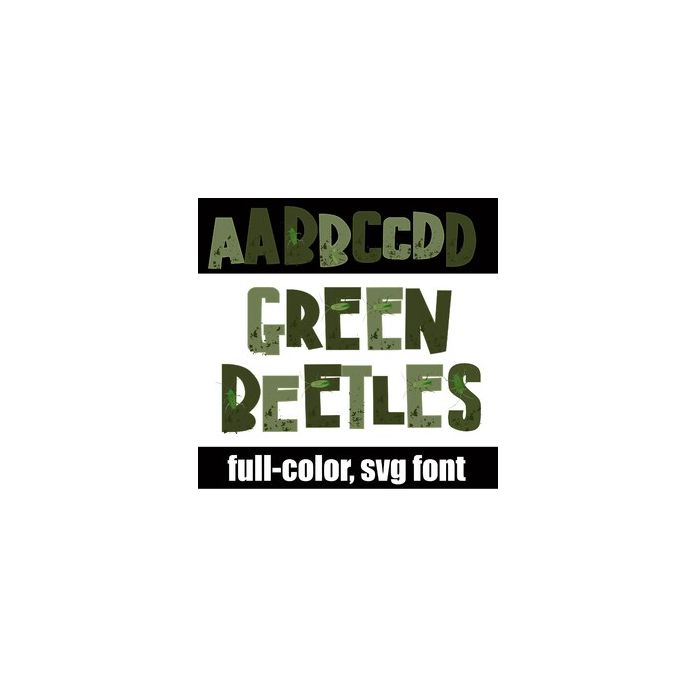
This full-color font features green beetles and grunge. There is a second version of each upper and lowercase letter in a different variation available through Silhouette's glyph map.